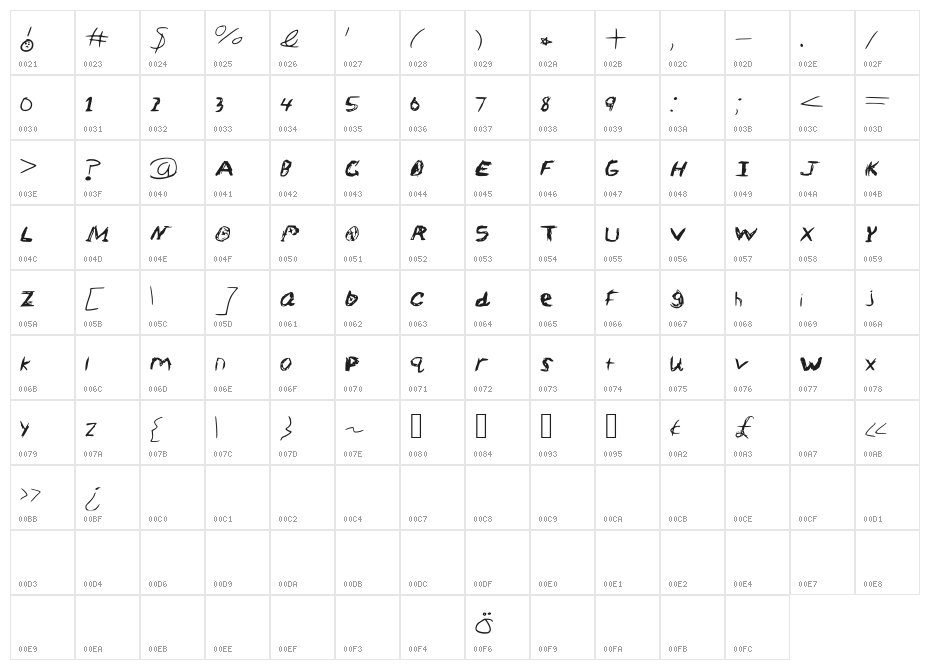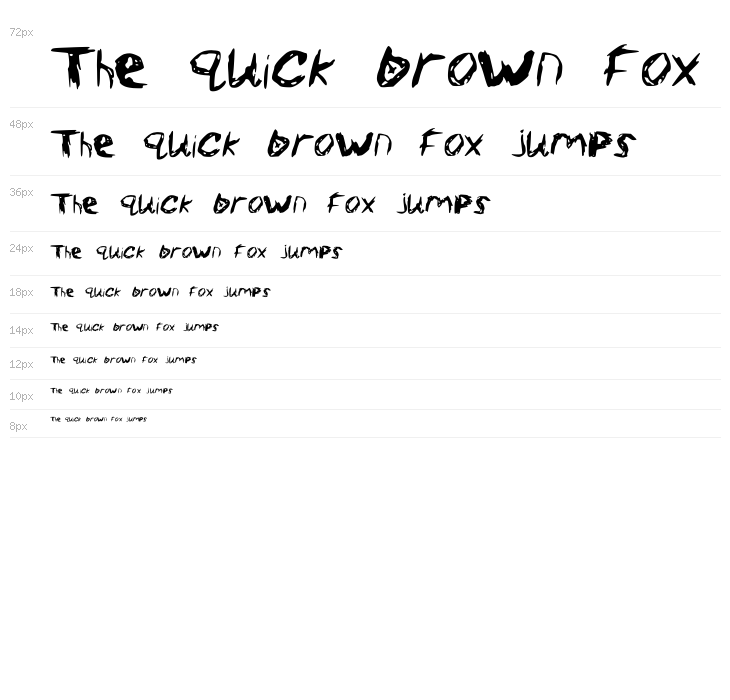
Sketch_Scoring_Font Font
Sketch_Scoring_Font Description
This font exhibits a bold, expressive style with a hand-drawn appearance, characterized by irregular strokes and a rough texture. The letters have a dynamic, energetic feel, with varying thickness and a slightly chaotic arrangement that adds to its artistic flair. The uppercase and lowercase letters maintain a consistent style, while the numbers and special characters complement the overall design. This font is ideal for projects that require a creative, edgy touch, such as posters, album covers, or artistic branding.
| Proposed Projects | Ideal for creative projects like posters, album covers, and artistic branding. |